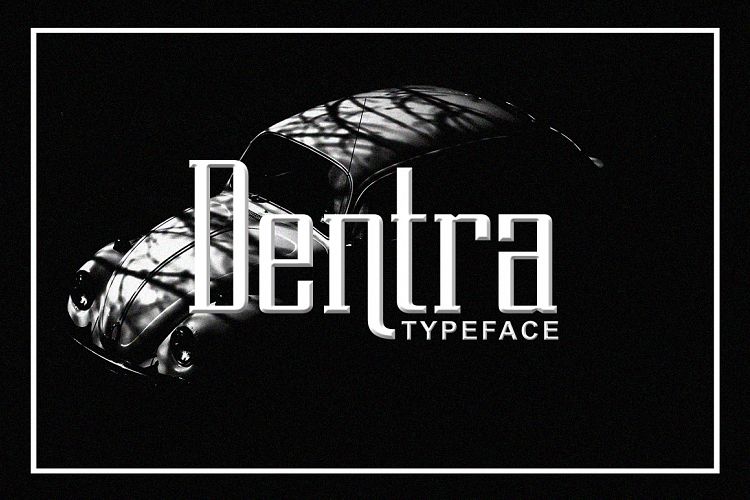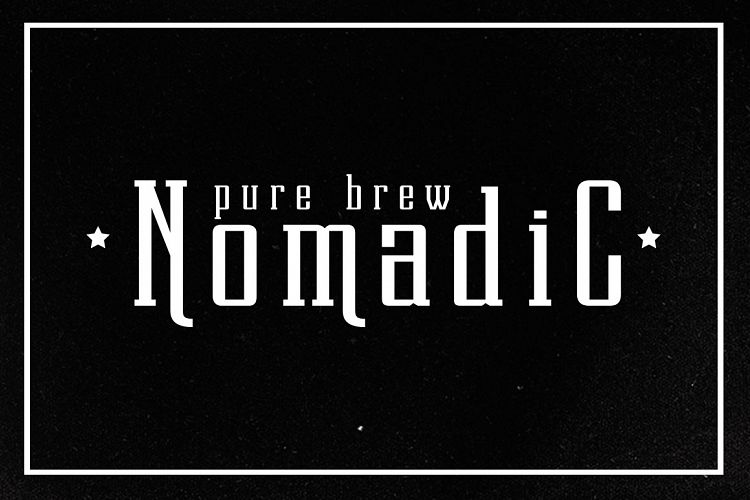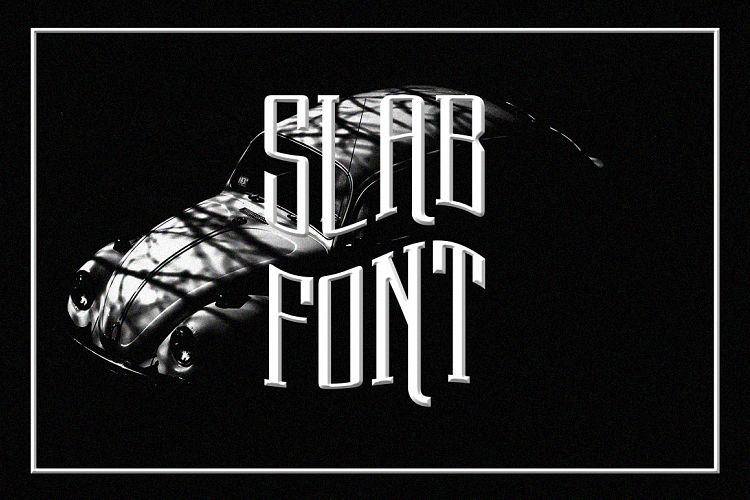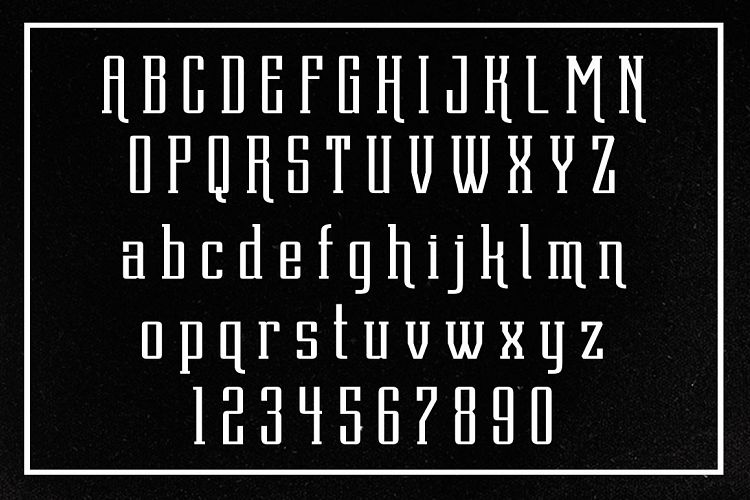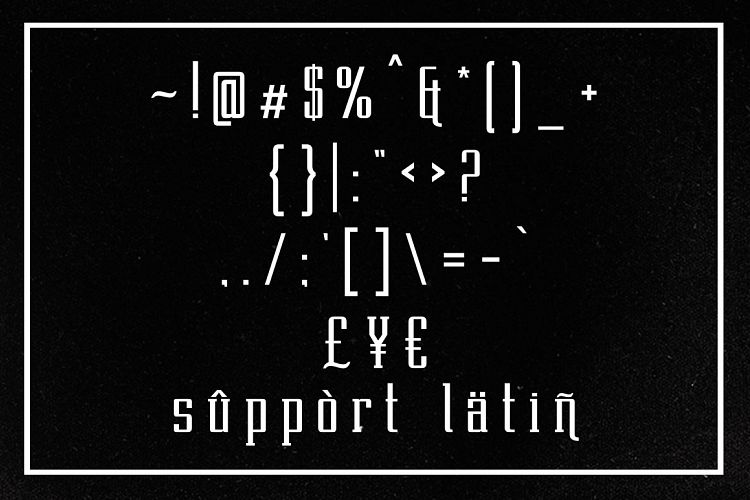
Dentra Font: A Vintage Typeface with a Modern Twist
In the world of typography, fonts play a crucial role in conveying messages, expressing emotions, and creating visual identities. For designers and crafters, finding the perfect font can be a daunting task, especially when looking for something unique and eye-catching. That’s where Dentra Font comes in – a vintage-looking typeface with a modern sauce poured on top of it.
The Birth of Dentra Font
Dentra Font is a carefully crafted typeface that draws inspiration from classic vintage fonts, but with a modern spin. Its creator aimed to bring back the nostalgic feel of old-school typography while infusing it with contemporary flair. The result is a font that’s both retro and fresh, perfect for designers and crafters looking to add a touch of sophistication to their projects.
What Makes Dentra Font Special?
So, what sets Dentra Font apart from other typefaces? Here are a few key features that make it stand out:
- Unique Character Set: Dentra Font boasts an extensive character set, including uppercase and lowercase letters, numbers, and special characters. This ensures that you have a wide range of options for creating visually appealing text.
- Vintage Flair: The font’s vintage inspiration is evident in its classic letterforms, which evoke a sense of nostalgia and timelessness.
- Modern Twist: Despite its vintage roots, Dentra Font has a distinctly modern feel, thanks to its clean lines, elegant curves, and carefully crafted details.
- High Versatility: Whether you’re working on a logo, brochure, or social media graphics, Dentra Font adapts seamlessly to different contexts and applications.
Who Can Benefit from Dentra Font?
Dentra Font is an excellent choice for a variety of designers and crafters, including:
- Graphic Designers: Those working on branding, advertising, or marketing materials will appreciate Dentra Font’s versatility and visual appeal.
- Crafters: DIY enthusiasts, scrapbookers, and card makers will love using Dentra Font to add a touch of elegance to their handmade projects.
- Web Designers: Dentra Font’s clean and legible design makes it an excellent choice for web typography, ensuring that your website or blog looks professional and visually appealing.
Tips for Using Dentra Font
To get the most out of Dentra Font, consider the following tips:
- Experiment with Sizes: Dentra Font looks great in various sizes, from large headlines to smaller body text.
- Play with Colors: The font’s classic design pairs well with a range of colors, from bold and bright to muted and pastel.
- Mix and Match: Combine Dentra Font with other typefaces to create visually interesting and dynamic layouts.
Dentra Font is a unique and captivating typeface that brings together the best of vintage and modern design. Its versatility, elegance, and charm make it an excellent choice for designers and crafters looking to elevate their projects. Whether you’re working on a professional design or a personal craft, Dentra Font is sure to inspire and impress.